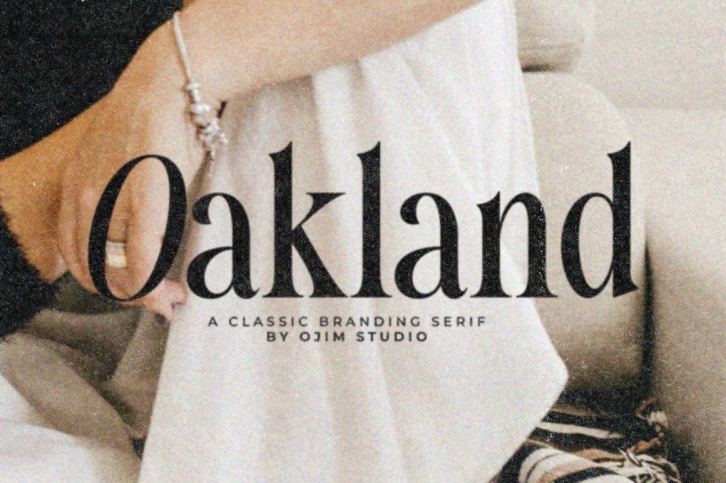
Oakland is a beautiful font that was designed by ojim studio. It's a great choice for designers and creatives who need such a font. It was released on October 5, 2022 and the file size is 6.34 MB. Oakland may give a more youthful, expressive and casual look to your project. It is a very beautiful, refined, elegant, and high-quality font.